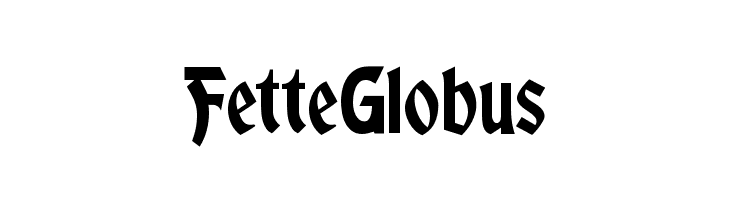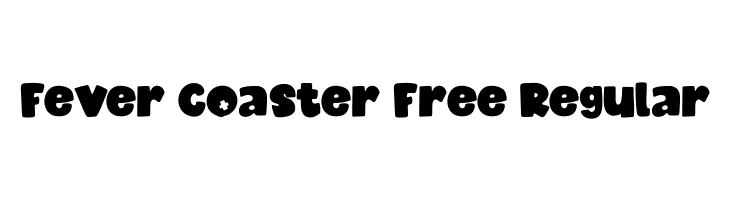
A bold, decorative font with animal-inspired, zigzag silhouettes.
A bold, zigzag-patterned font with a dynamic and playful style.
A bold, 3D geometric font with striking outlines and a modern aesthetic.
A bold, geometric font with a 3D zigzag pattern, offering a modern and dynamic look.
A bold, 3D geometric font with a zigzag pattern, ideal for decorative use.
Highly detailed, zigzag-shaded animal illustrations for decorative use.
An elegant and decorative script font with flowing, ornate letterforms.
A flowing, elegant cursive font with smooth curves and moderate contrast.
A playful, hand-drawn font with bold, wavy outlines and a whimsical style.
A fluid and elegant script font with smooth, flowing letterforms.
Bold, geometric font with a futuristic and angular design.
A bold, geometric outline font with sharp angles and a modern look.
A bold, jagged font with dynamic and irregular shapes.
A playful, hand-drawn font with whimsical dots and irregular shapes.
Illustrative display font with scene-based glyphs.
Contains zodiac symbols, not a traditional font.
Intricate zodiac sign illustrations in a vintage, monochromatic style.
A graffiti-style font using hand gestures to represent letters and numbers.
A detailed hand-illustrated font representing the German finger alphabet.
A bold, edgy font with sharp, angular lines and dramatic curves.
A playful, hand-drawn font inspired by sign language gestures.
A bold, 3D italic font with angular, geometric design.
A bold, 3D geometric font with a shadow effect.
A bold, condensed font with a Gothic, blackletter-inspired design.
A bold, condensed, and italic font with sharp angles and a dynamic style.
A bold, angular font with a modern twist on traditional Blackletter styles.
A bold, italicized font with sharp angles and expanded width, perfect for striking headlines.
A bold, angular font with a Gothic influence and strong geometric shapes.
A bold, extra-expanded italic font with sharp, angular edges for a modern look.
A bold, angular italic font with a dynamic and energetic style.
Bold, angular font with a leftward slant and strong visual impact.
A bold, outlined, italic font with angular edges and a modern look.